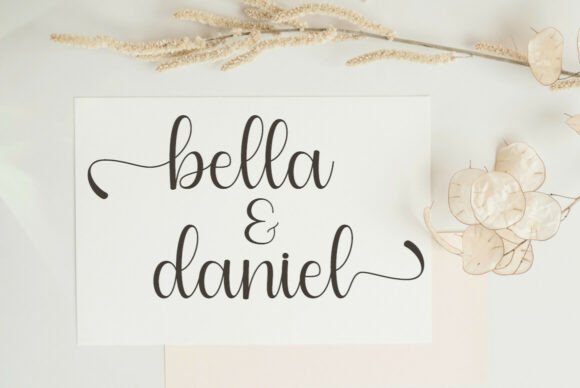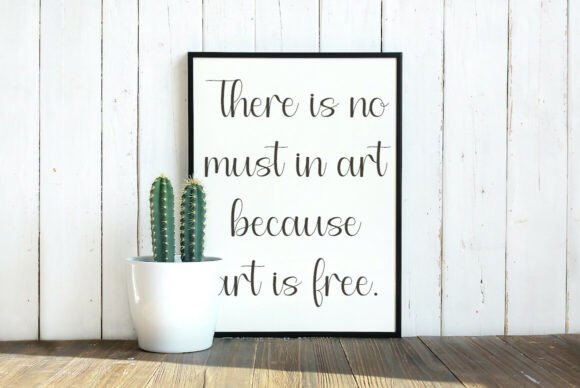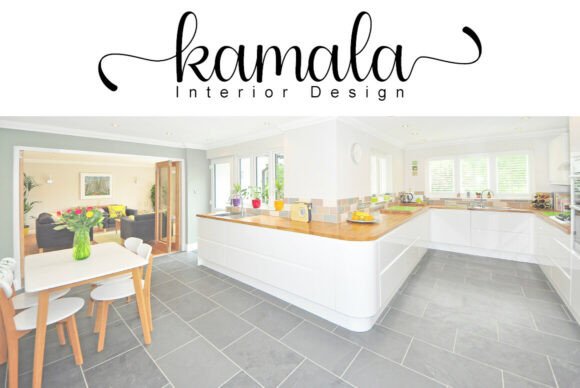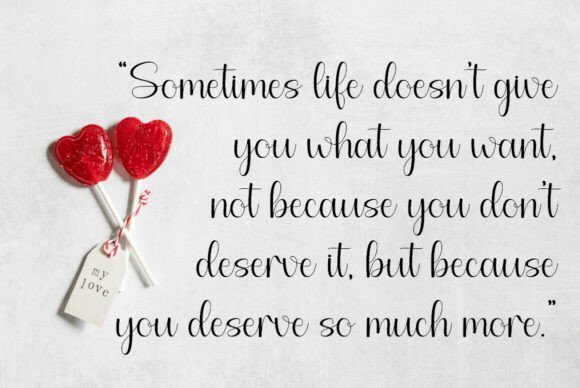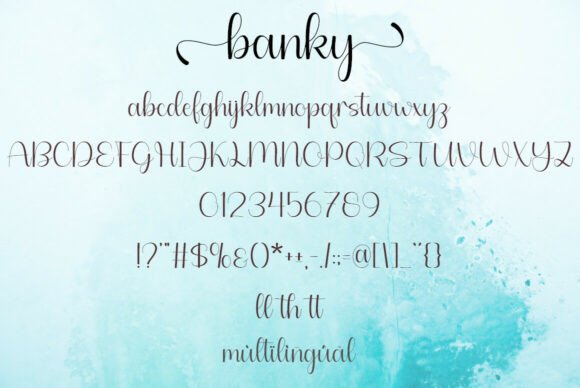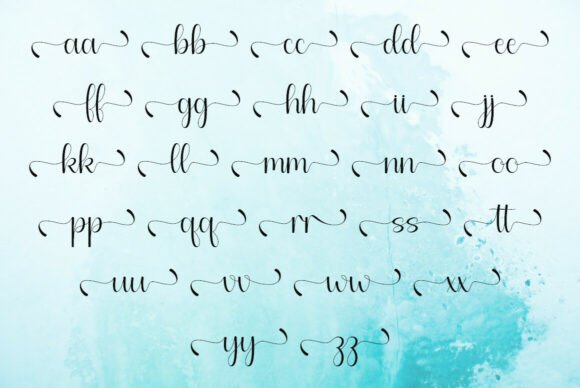
Discover the Elegance of Banky Font: Elevate Your Designs with Sophistication and Charm
In the world of typography, few fonts manage to convey the essence of elegance and sophistication as effortlessly as Banky Font. This stylish and elegant handwritten font has been making waves among designers and crafters alike, and for good reason. Its graceful letterforms and fluid strokes make it the perfect choice for a wide range of design projects, from wedding invitations and thank-you cards to quotes, greeting cards, logos, and business stationery.
The Characteristics of Banky Font
Banky Font is more than just a beautiful typeface; it’s an experience. Its refined and charming aesthetic instantly elevates any design, adding a touch of sophistication that’s hard to achieve with other fonts. The fluid strokes and elegant letterforms are meticulously crafted to provide a seamless and luxurious feel, making it ideal for projects that demand a high level of refinement.
One of the standout features of Banky Font is its versatility. Whether you’re working on a personal project, such as a wedding invitation or a handmade card, or a professional project, like a logo or business stationery, Banky Font fits the bill perfectly. Its adaptability makes it a go-to choice for designers who need a font that can keep up with their creative demands.
PUA Encoding for Easy Customization
Banky Font takes customization to the next level with its full PUA (Private Use Area) encoding. This means that users have easy access to all glyphs and alternates, allowing for seamless customization without the need for additional design software. This feature is particularly beneficial for designers who want to add a personal touch to their projects without spending hours editing the font.
Applications of Banky Font
The applications of Banky Font are vast and varied. Here are a few ideas to get you started:
• Wedding Invitations: Add a touch of elegance to your wedding invitations with Banky Font. Its sophisticated look is sure to set the tone for a memorable event.
• Thank-You Cards: Express your gratitude in style with beautifully crafted thank-you cards featuring Banky Font.
• Quotes and Greeting Cards: Give your quotes and greeting cards a refined look that stands out from the crowd.
• Logos and Business Stationery: Elevate your brand’s image with a logo and business stationery that exudes professionalism and elegance.
Why Choose Banky Font?
With so many fonts available, why should you choose Banky Font for your next project? The answer lies in its unique blend of style, elegance, and versatility. Here are a few compelling reasons:
• Timeless Appeal: Banky Font has a timeless quality that ensures your designs will never go out of style.
• Elegant Flair: It adds an elegant flair to any design, making it perfect for projects that require a touch of sophistication.
• Easy to Use: With its PUA encoding, customizing Banky Font is easier than ever, even for those without extensive design experience.
Banky Font is a stylish and elegant handwritten font that offers a world of possibilities for designers and crafters. Its sophisticated look, versatility, and ease of use make it an invaluable asset for any creative project. Whether you’re looking to add a touch of elegance to a wedding invitation or create a logo that exudes professionalism, Banky Font is the perfect choice. With its timeless appeal and elegant flair, Banky Font is sure to become a staple in your design toolkit.